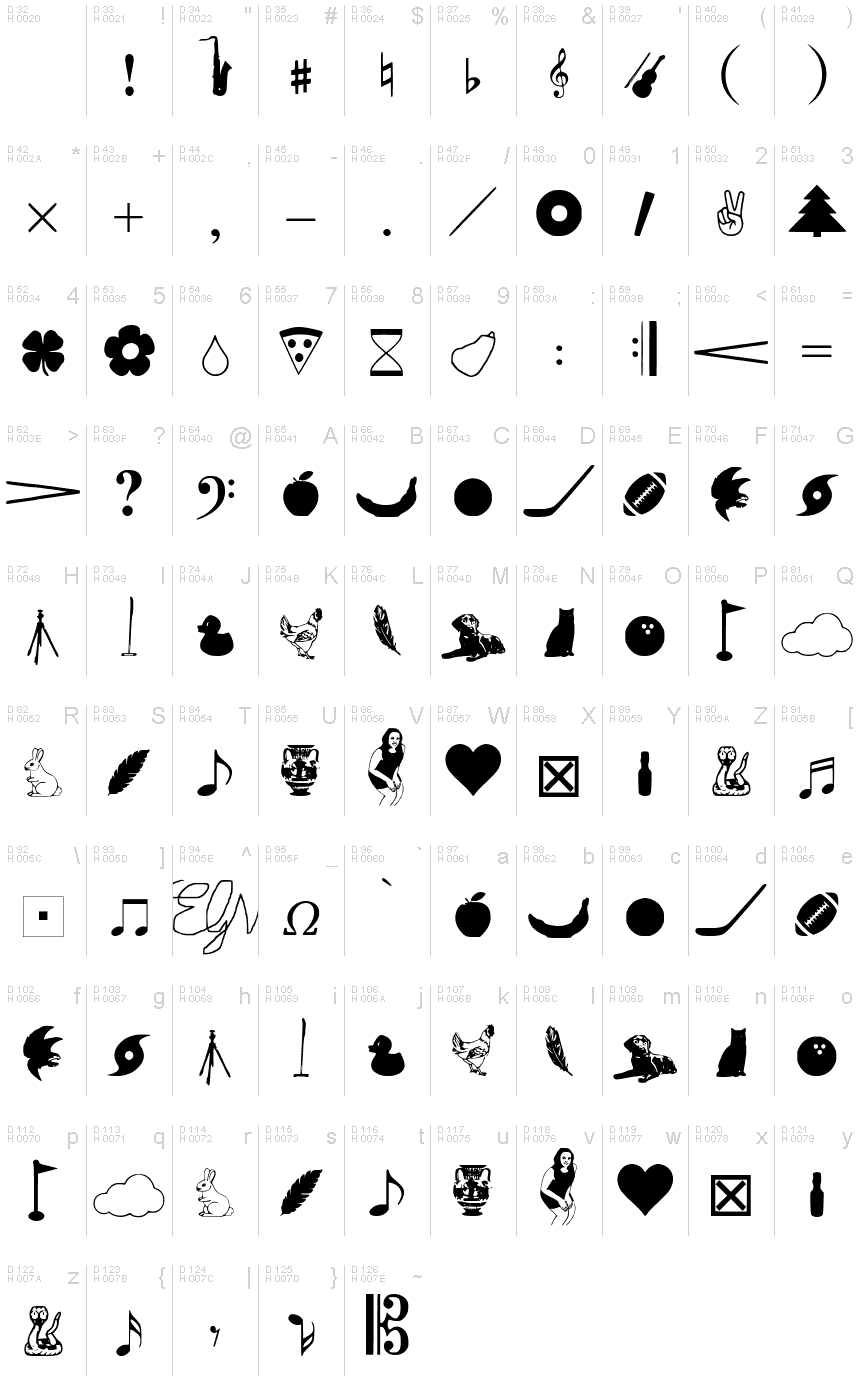
Markbats Regular
Markbats is a chain of dingbat fonts created by me. These fonts were inspired by Wingdings and other dingbat fonts. Markbats consists of 12 fonts with a diverse variety of symbols, which include pictures of objects, people, essential symbols, TV and movie characters, and stars. The name "Markbats" comes from the markings used in creating dingbat fonts.
The first Markbats font was released on July 3, 2019. It contains a diverse arrangement of symbols for the letters, but capital and lowercase share the same respective symbols. It also contains musical symbols and mathematical symbols.
- The numbers (0-9) are diversely arranged drawings.
- The punctuation marks represent musical symbols.
- The asterisk (*) represents the multiplication sign (×) as it is interpreted in math.
- The circumflex (^) is encoded with my signature.